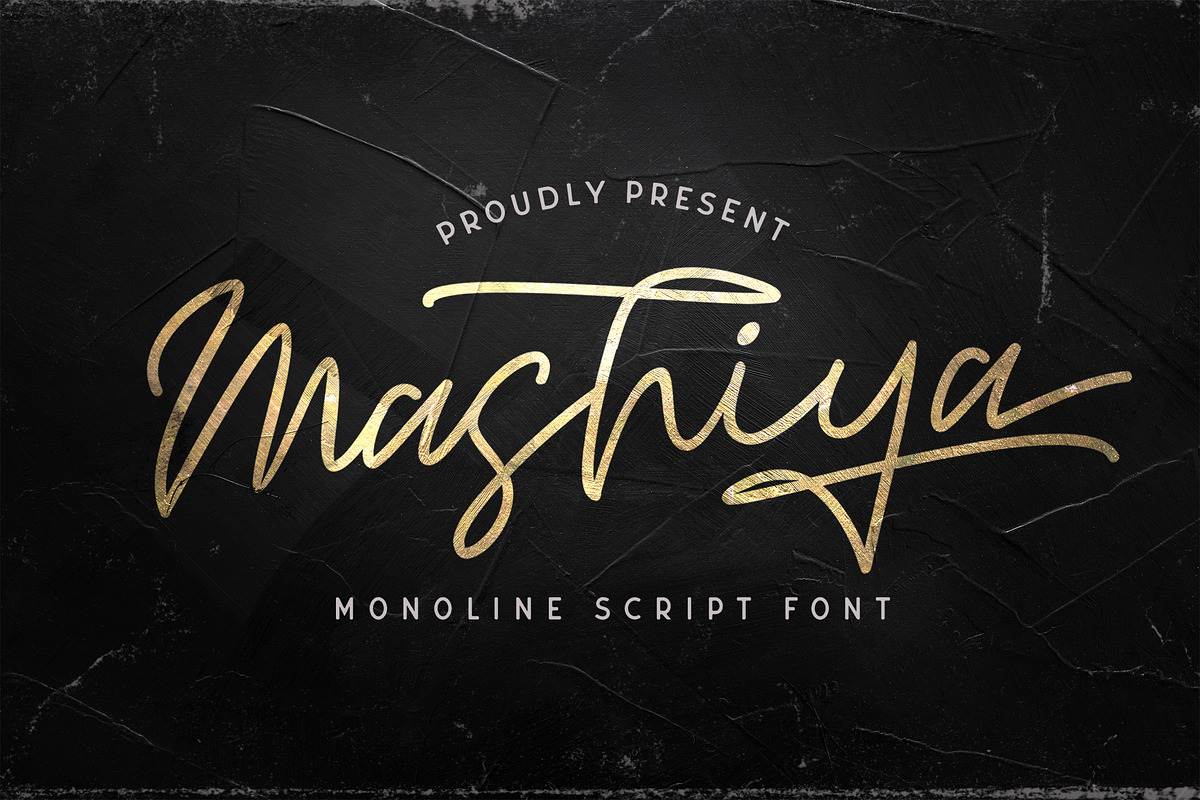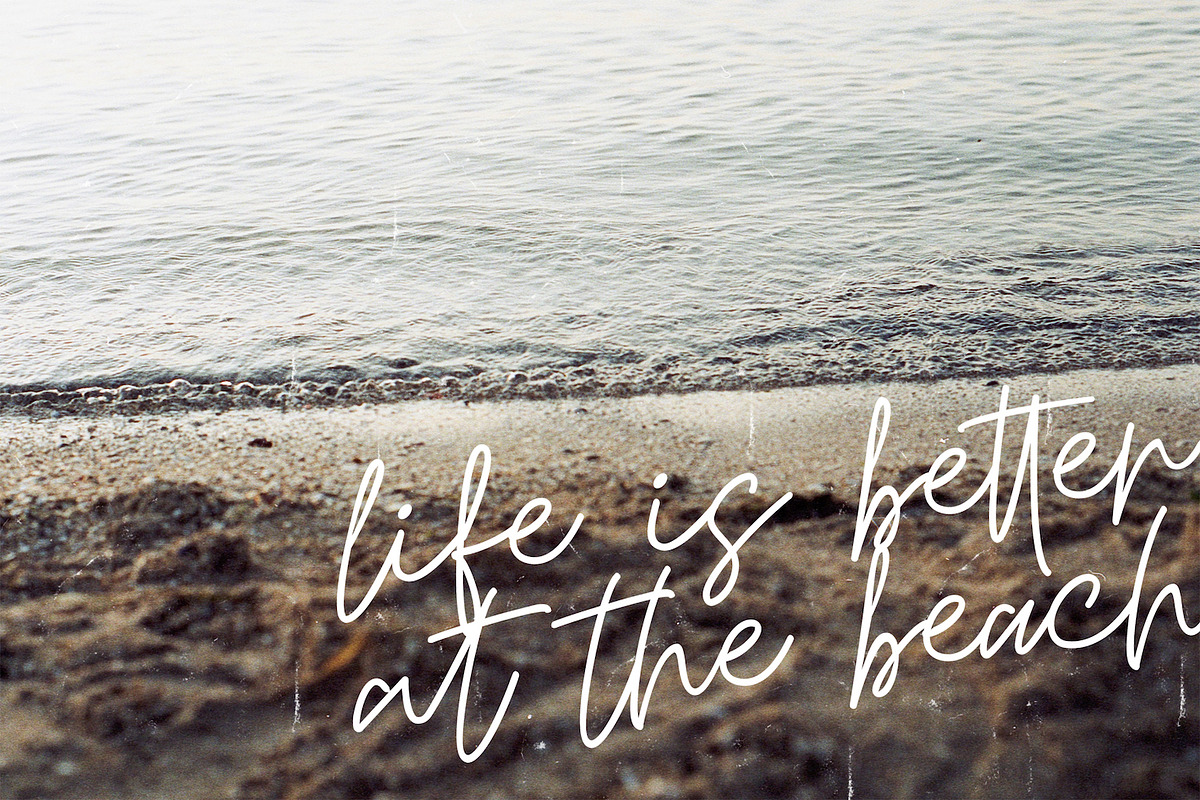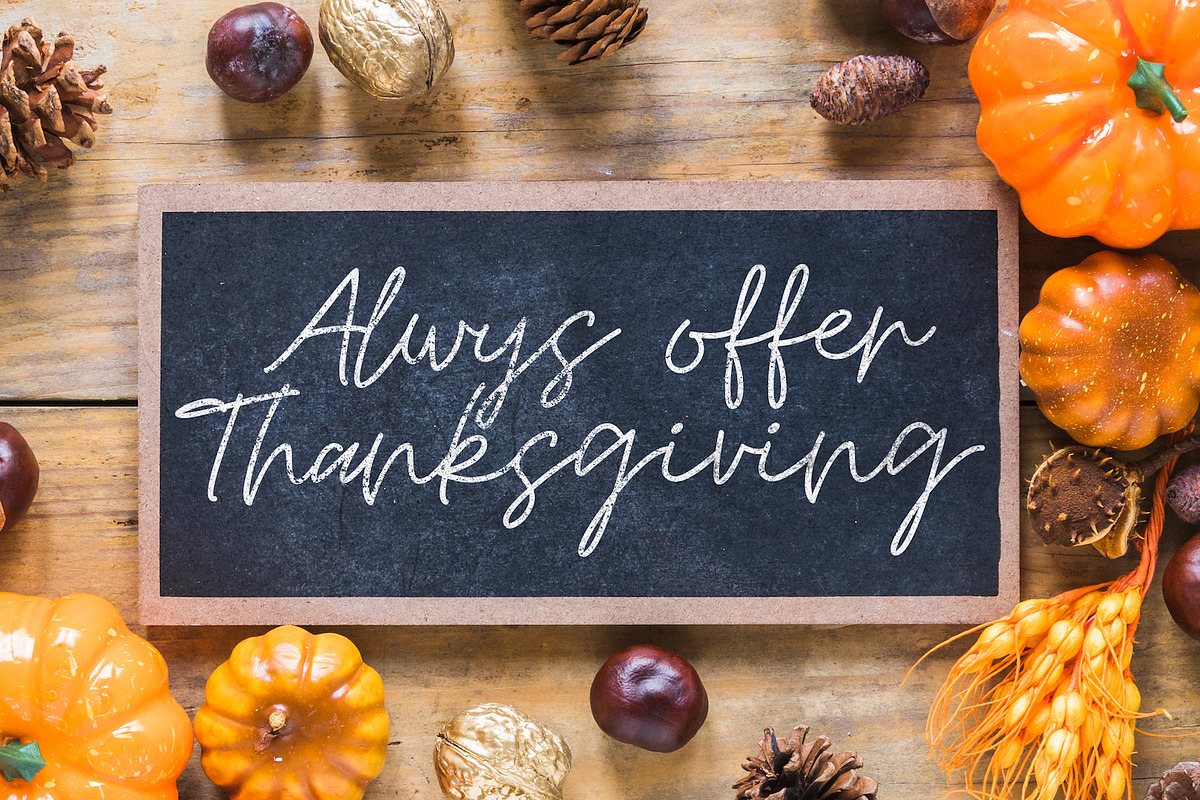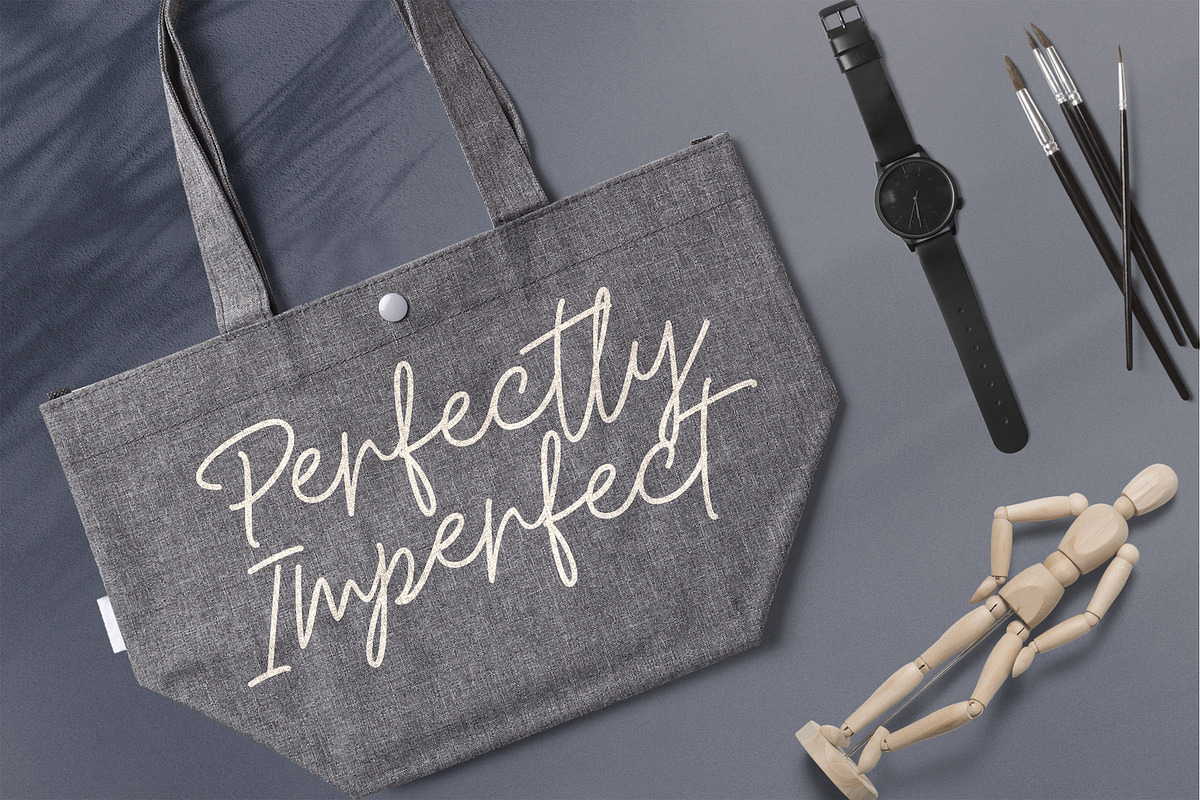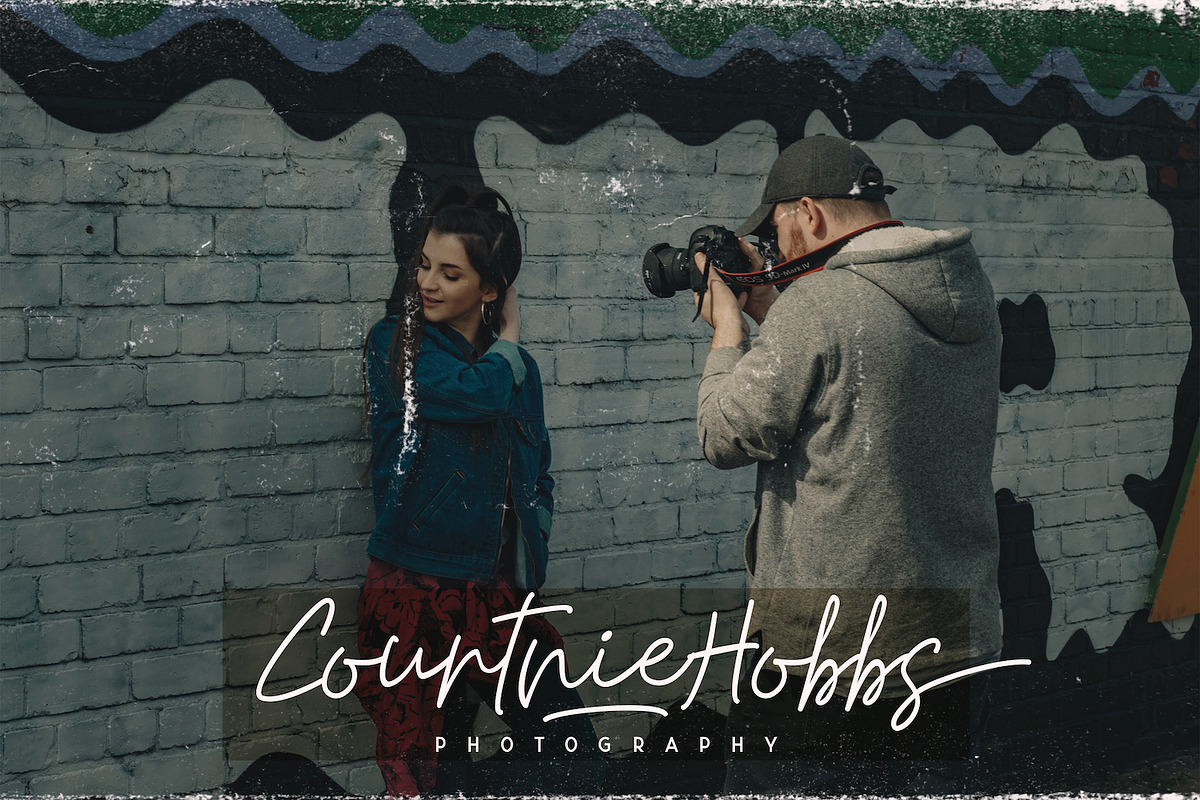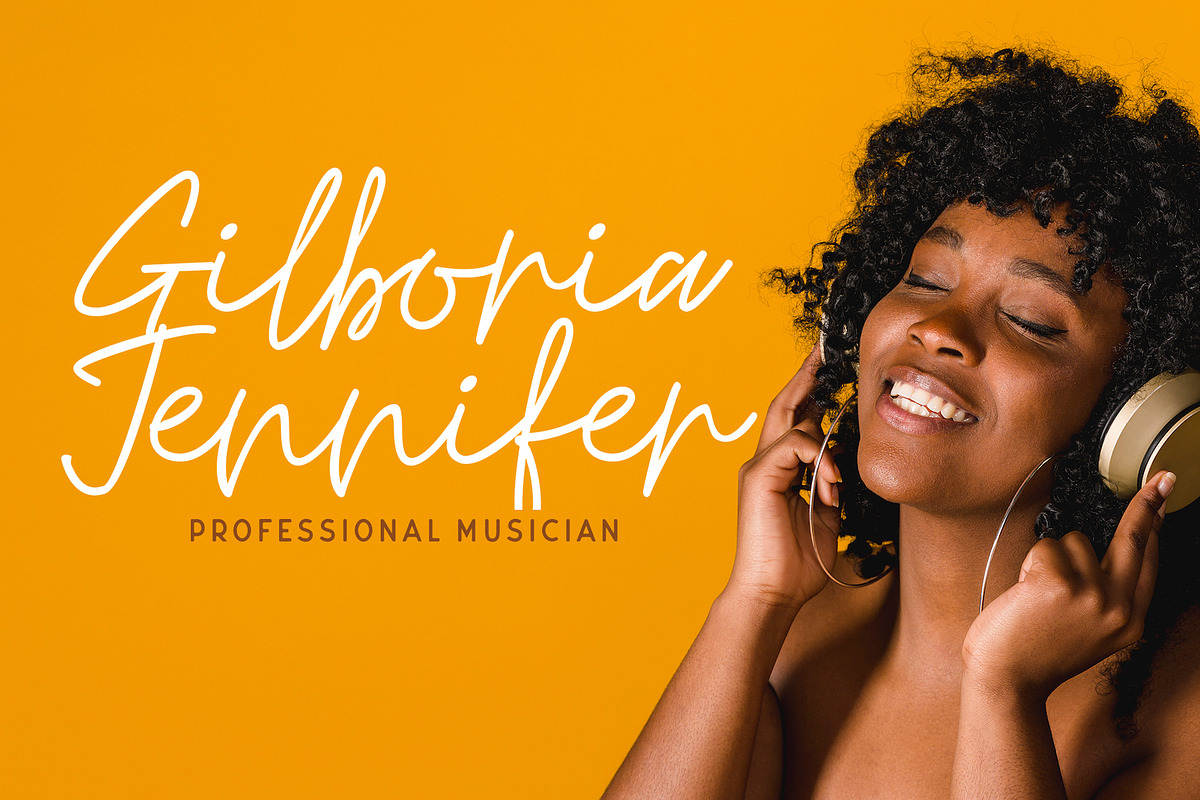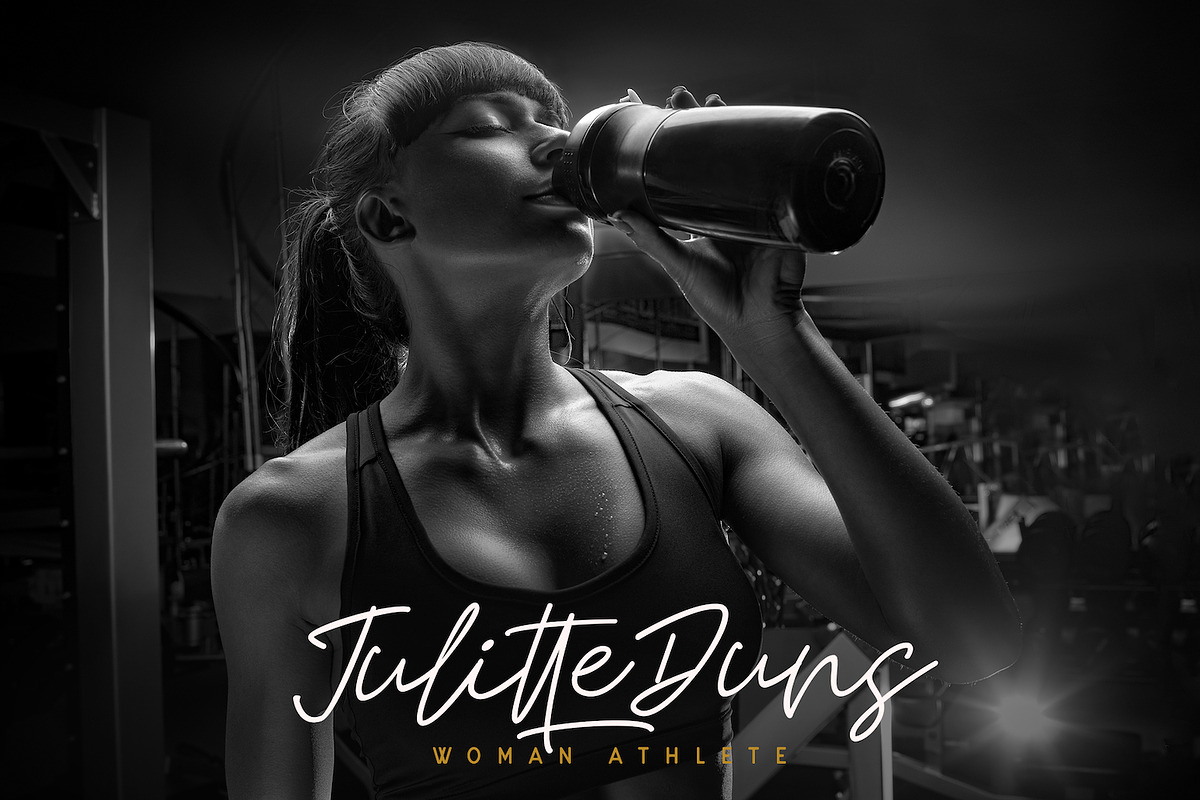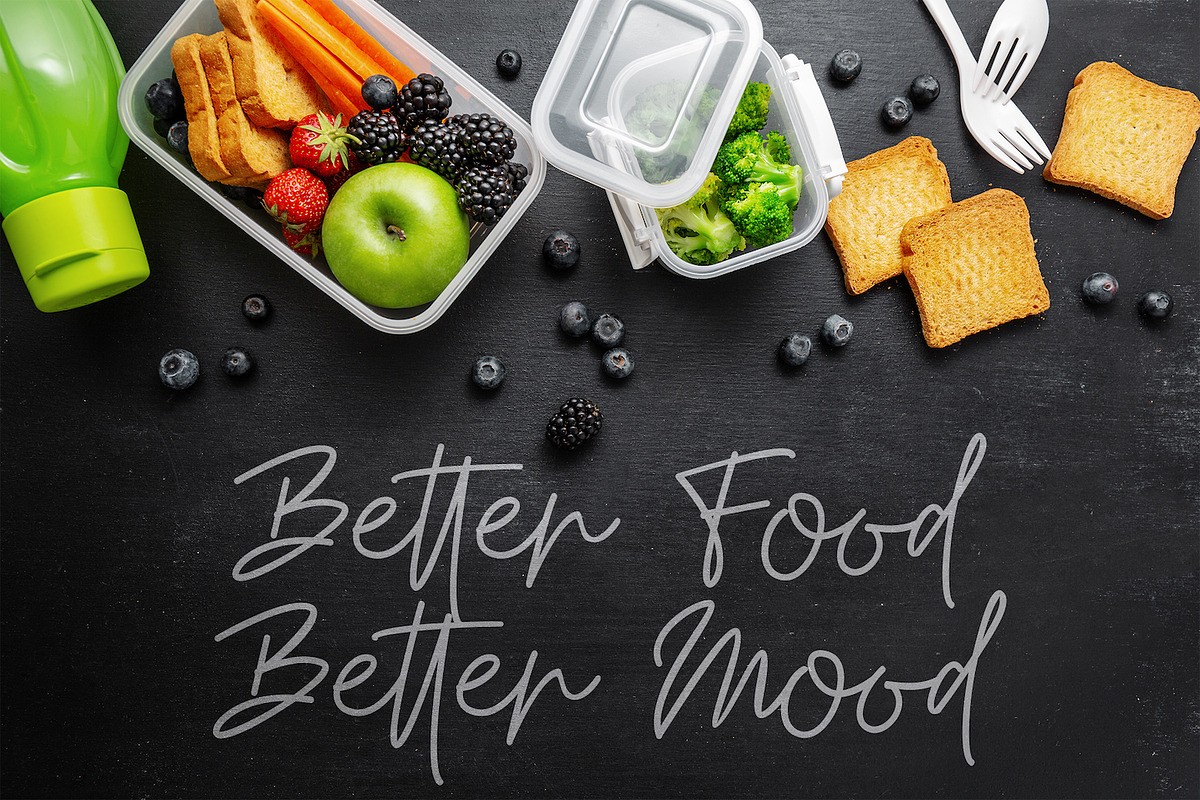
Mashiya - Monoline Script Font
Introducing Mashiya - Monoline Script Font
Mashiya is a Monoline Script Font with elegant style. This font is perfect for fashion brand, apparel, shoes company, wedding invitation, business card, logo brand, clothing, and also business brand name like barber shop or taylor.
- This Font Template contains Luxury, Elegant, Creative, and has a Unique Concept.
Why Mashiya - Monoline Script Font is worth a look
Mashiya - Monoline Script Font by StringLabs fits naturally into Branding, posters, packaging, typography.